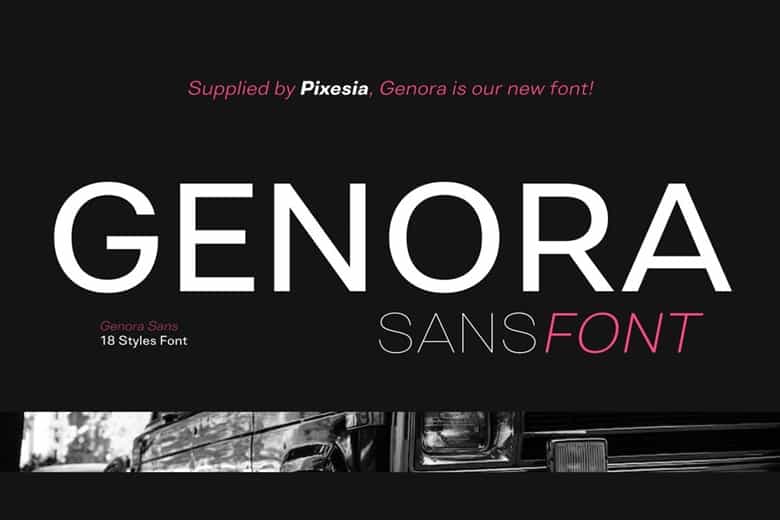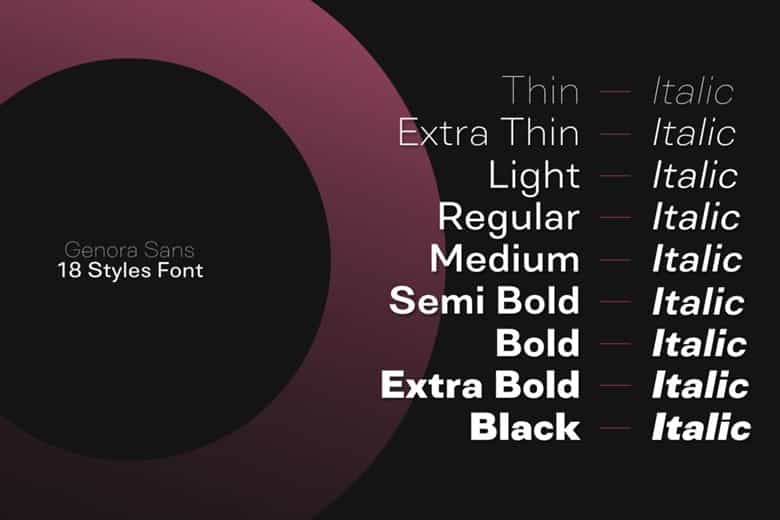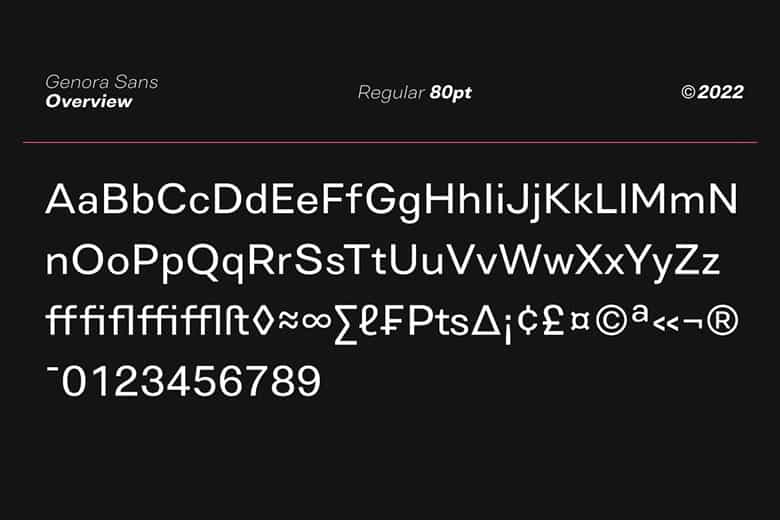
Genora Sans is a new modern geometric sans serif typeface. It comes in a modern sans-serif style with nine weights and eighteen styles from thin to black that will aid your design process. The typeface is suitable for the corporate design, logos, editorial and outlining, the internet and websites, titles, books, magazines, business cards, labels, packages, or any other advertising purposes and application in the UI/UX design.